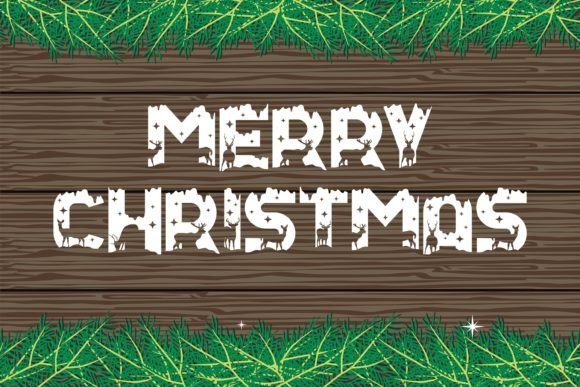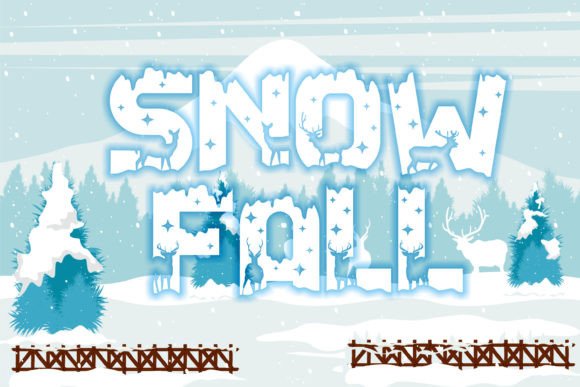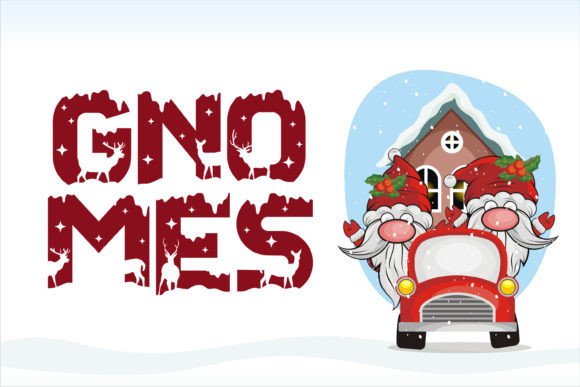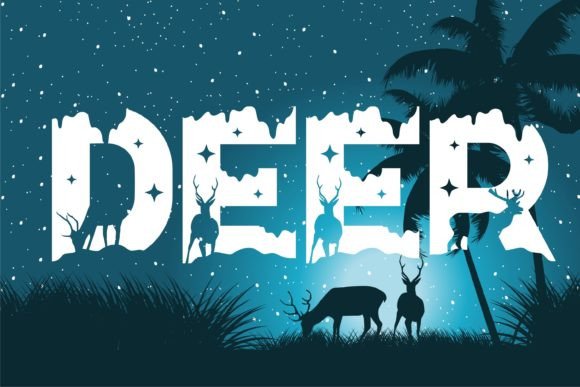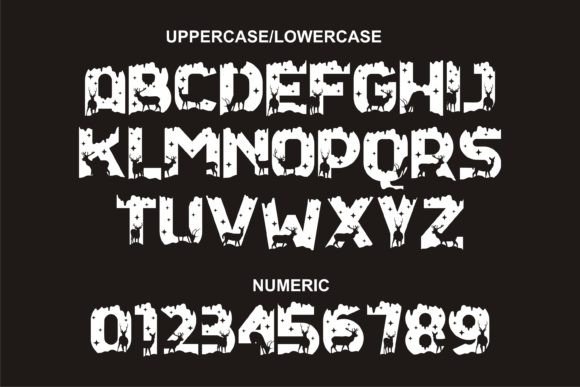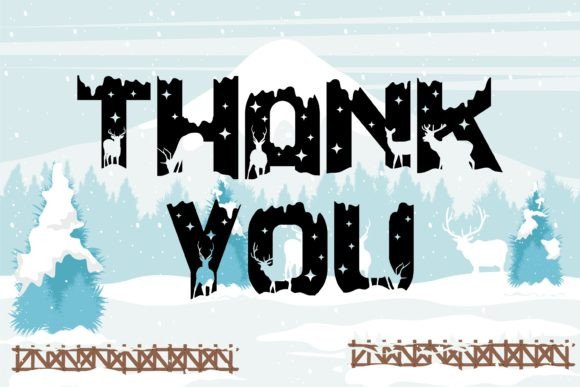
Introduction to Snow Deer Font Font
Fonts play a crucial role in design, and the Snow Deer Font font is a typeface that brings both character and versatility to any project. Whether you’re working on a branding project, a website, or a print design, the Snow Deer Font font offers a unique style that can elevate your work.
Snow Deer is a decoration font with silhouettes of deer and snow, this font is very suitable for Christmas and new year theme design.
No matter the topic, this font will be an incredible asset to your fontsβ library, as it has the potential to elevate any creation .
Key Features of Snow Deer Font Font
Why Choose Snow Deer Font Font?
The Snow Deer Font font is more than just a typeface β it’s a design tool that helps you communicate your message with style and clarity. Its unique character set and versatile design make it suitable for a wide range of applications, from elegant invitations to bold headlines.
With its carefully crafted letterforms and balanced proportions, the Snow Deer Font font ensures readability and visual appeal across all mediums.
What makes Snow Deer Font font special?
The Snow Deer Font font stands out with its unique design, exceptional readability, and versatility across various design applications.